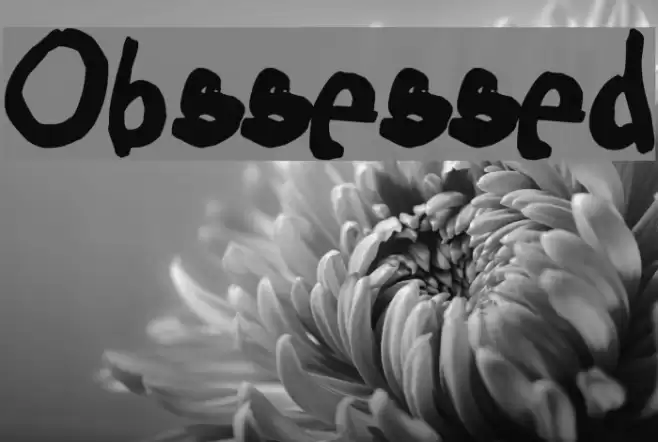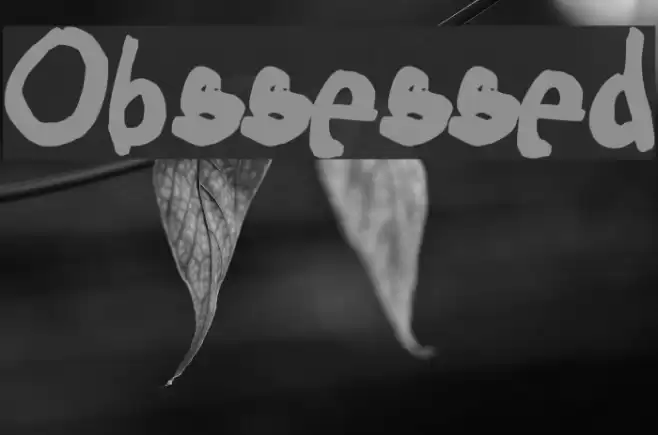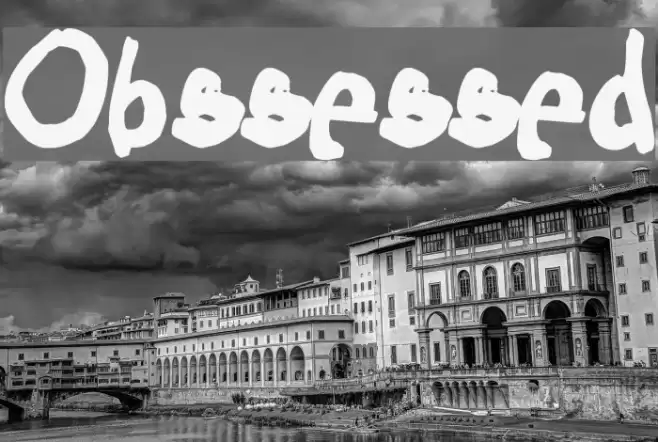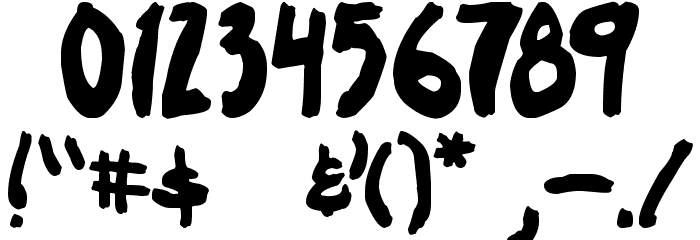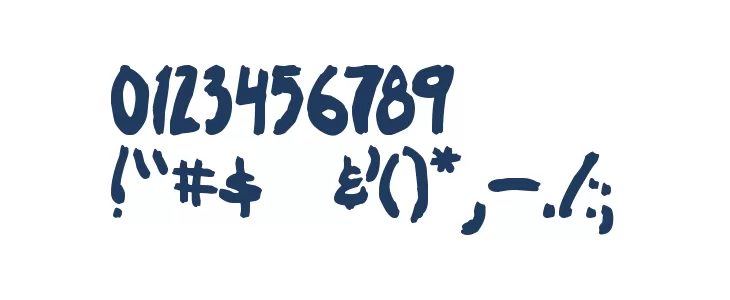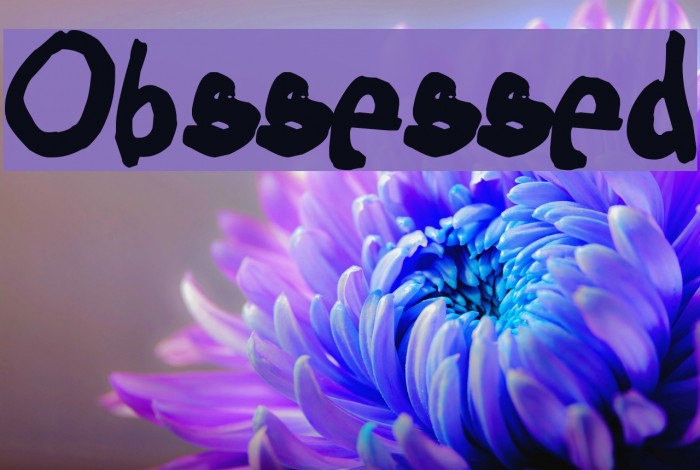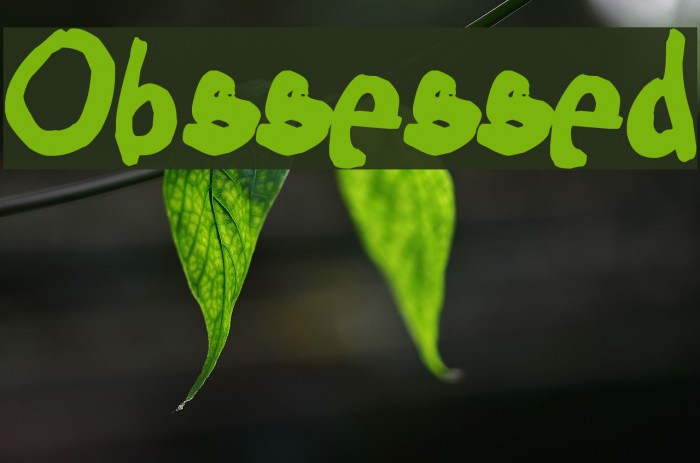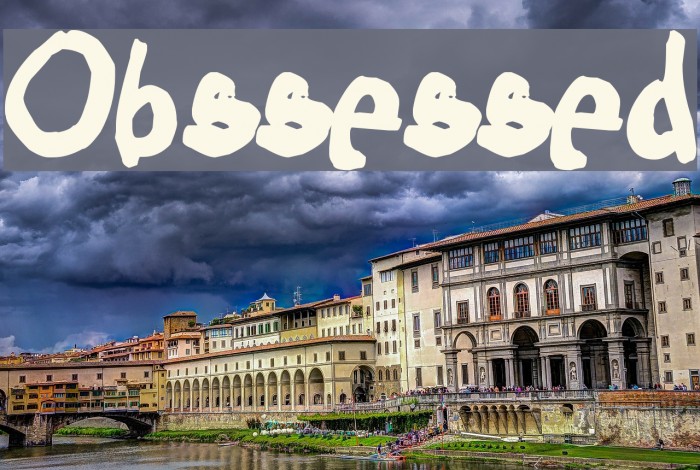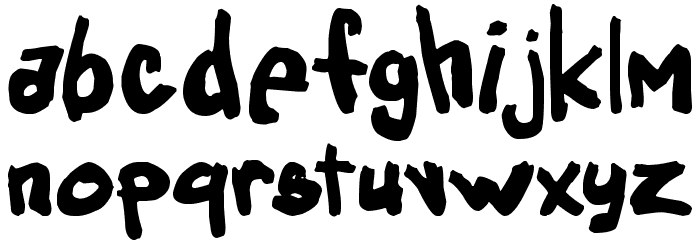
Obssessed Font
Obssessed Description
This font exhibits a bold, expressive style with a hand-drawn appearance. The characters are irregular and dynamic, giving off an energetic and playful vibe. The strokes are thick and varied, contributing to a high contrast between the different parts of each letter. The overall design is informal and artistic, making it suitable for creative projects. The uppercase and lowercase letters maintain a consistent style, while the numbers and special characters add to the font's quirky personality.
A bold, hand-drawn font with an energetic and playful style from Handwritten fonts.
- Proposed Projects: Ideal for posters, children's books, comic strips, and creative branding projects.